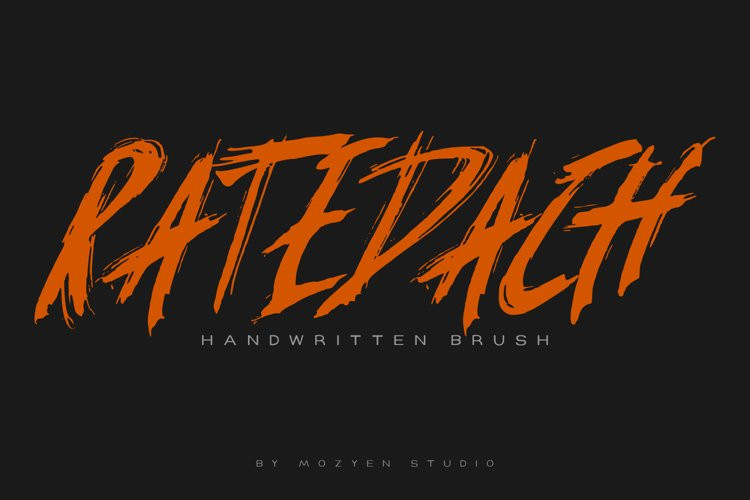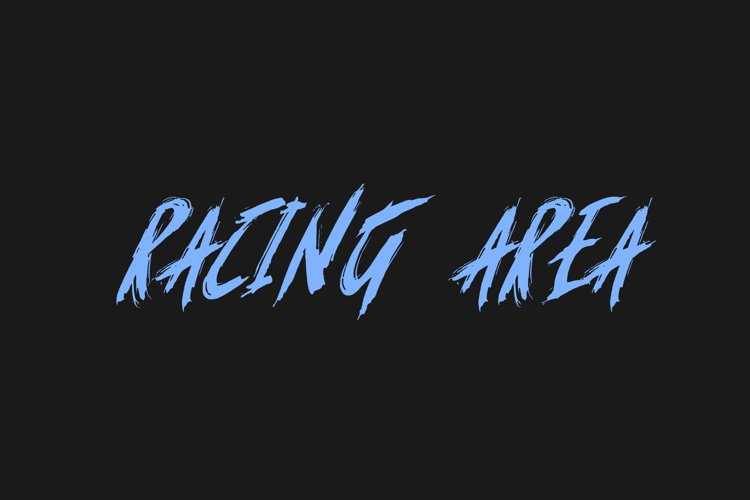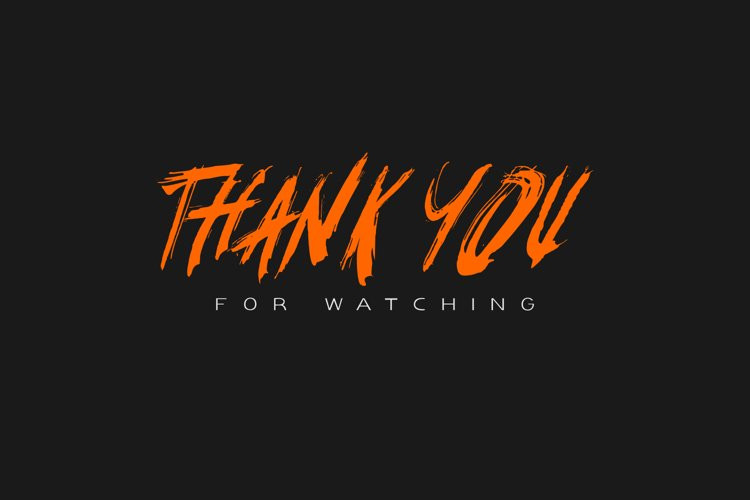
Ratedach Font
Ratedach FontIntroducing the “Ratedach” Brush font. This typeface model is suitable for you to use for product branding, logo branding, book titles, any title design. Files include OTF, TTF and WOFF